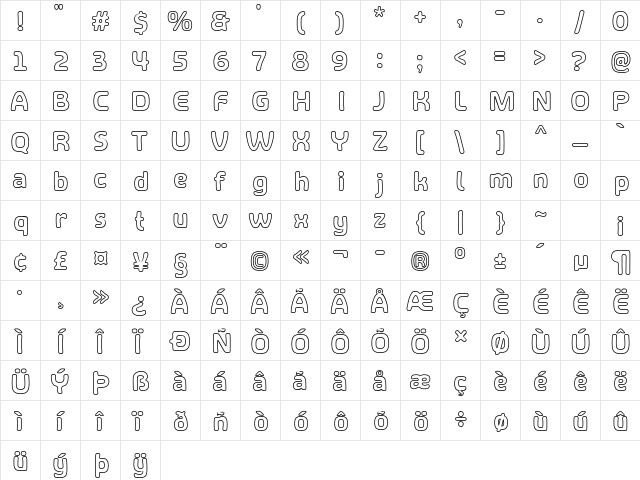
SHA Outline Regular
| Foundry | 7NTypes |
| Designer | Situjuh Nazara |
Design Context for SHA Outline Typeface
SHA Outline brings ornamental detail and strong personality to headlines and identities, where visual impact matters more than quiet functionality.
Font Pairing: Pair with a clean neutral sans-serif for body copy to let SHA Outline's character lead without overwhelming the composition.
Pro Tip: Use SHA Outline exclusively at display sizes — it was designed to be seen, not read at length. Let a neutral companion handle body copy.